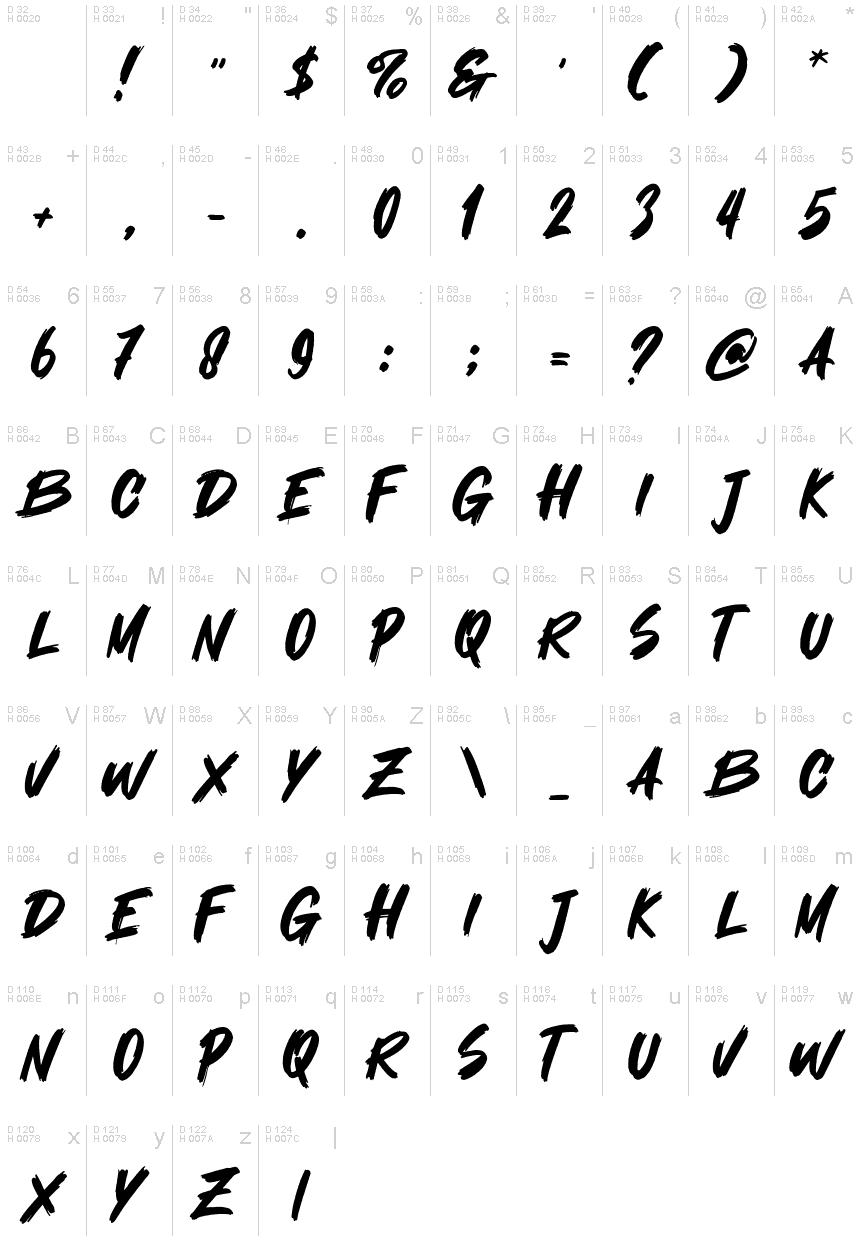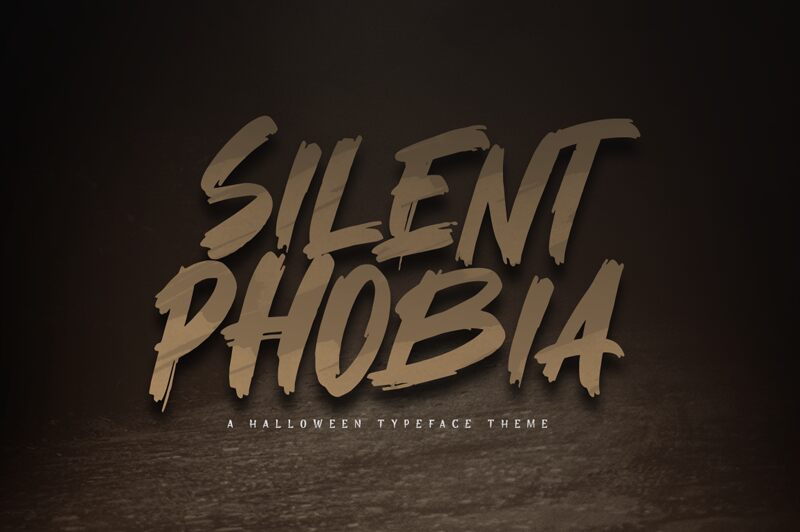
Silent Phobia
Silent Phobia, designed by Khurasan, is a captivating brush font that exudes an eerie and spine-chilling aura. With its semi-bold weight, this typeface achieves a perfect balance between legibility and intensity.
It invites you to explore the dark corners of design projects such as horror movie posters, haunted house flyers, Halloween-themed merchandise, or even spooky book covers.
Let Silent Phobia cast its spell on your designs and unleash a bone-chilling experience for your audience.